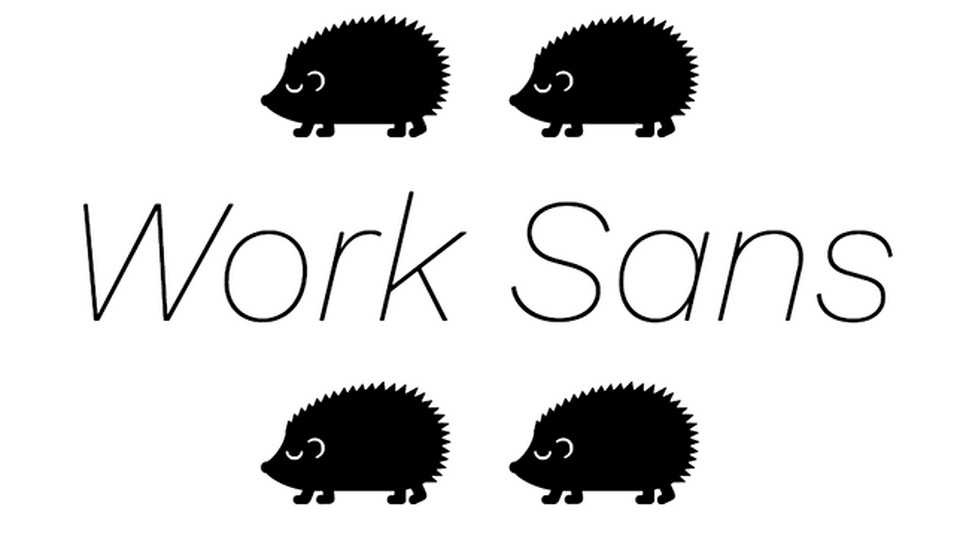
Download Work Sans New, a sans serif font family in 9 weights based loosely on early Grotesques. Work Sans New has been updated with accompanying italics, variable font files and extended character set.